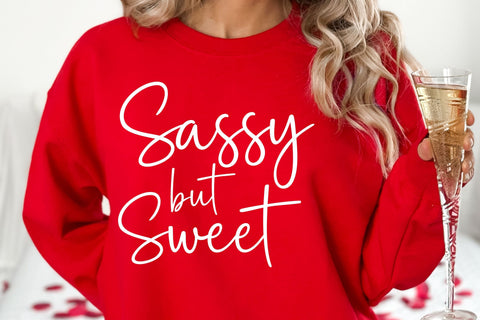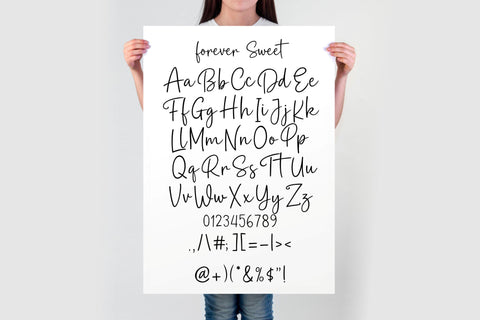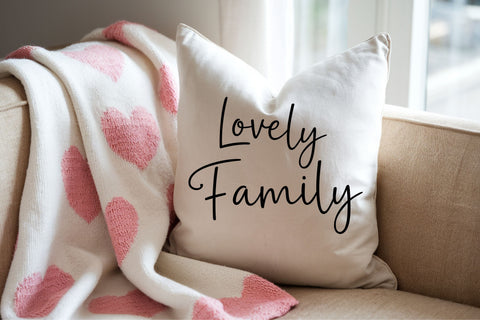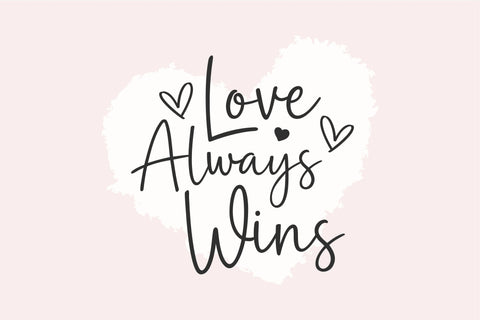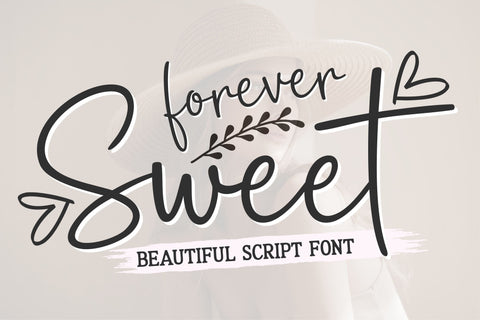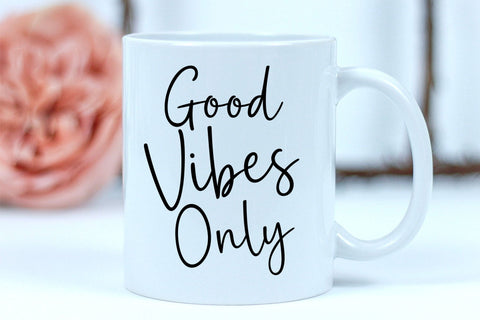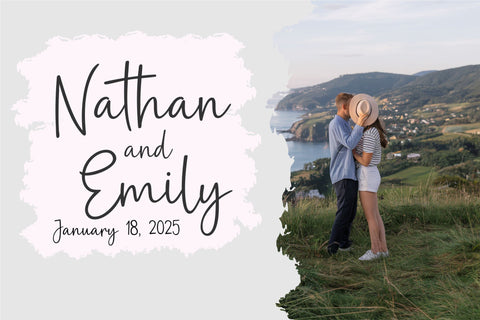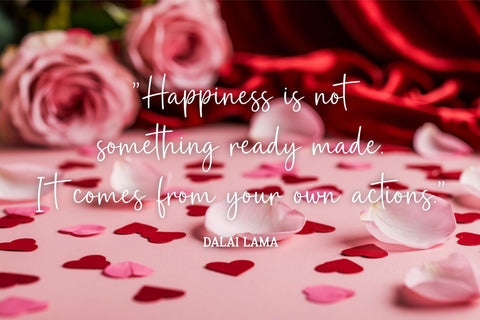
Forever Sweet Script Font | Handwritten Calligraphy Font
Introducing Forever Sweet, a beautiful handwritten script font with a modern calligraphy touch. This elegant font is perfect for weddings, branding, invitations, greeting cards, social media, t-shirts, mugs, and home decor. Designed with a natural flow and stylish curves, it adds a romantic and feminine feel to your projects.
✔️ Full uppercase & lowercase letters
✔️ Numbers & punctuation
💖 Perfect for:
✔️ Wedding invitations & stationery
✔️ Branding & business logos
✔️ T-shirts, mugs, and apparel designs
✔️ Social media posts & Instagram quotes
✔️ Greeting cards & love letters
✔️ Home decor signs & wall art
✔️ Valentine’s Day & romantic projects
✔️ Planners, journals, and scrapbooking